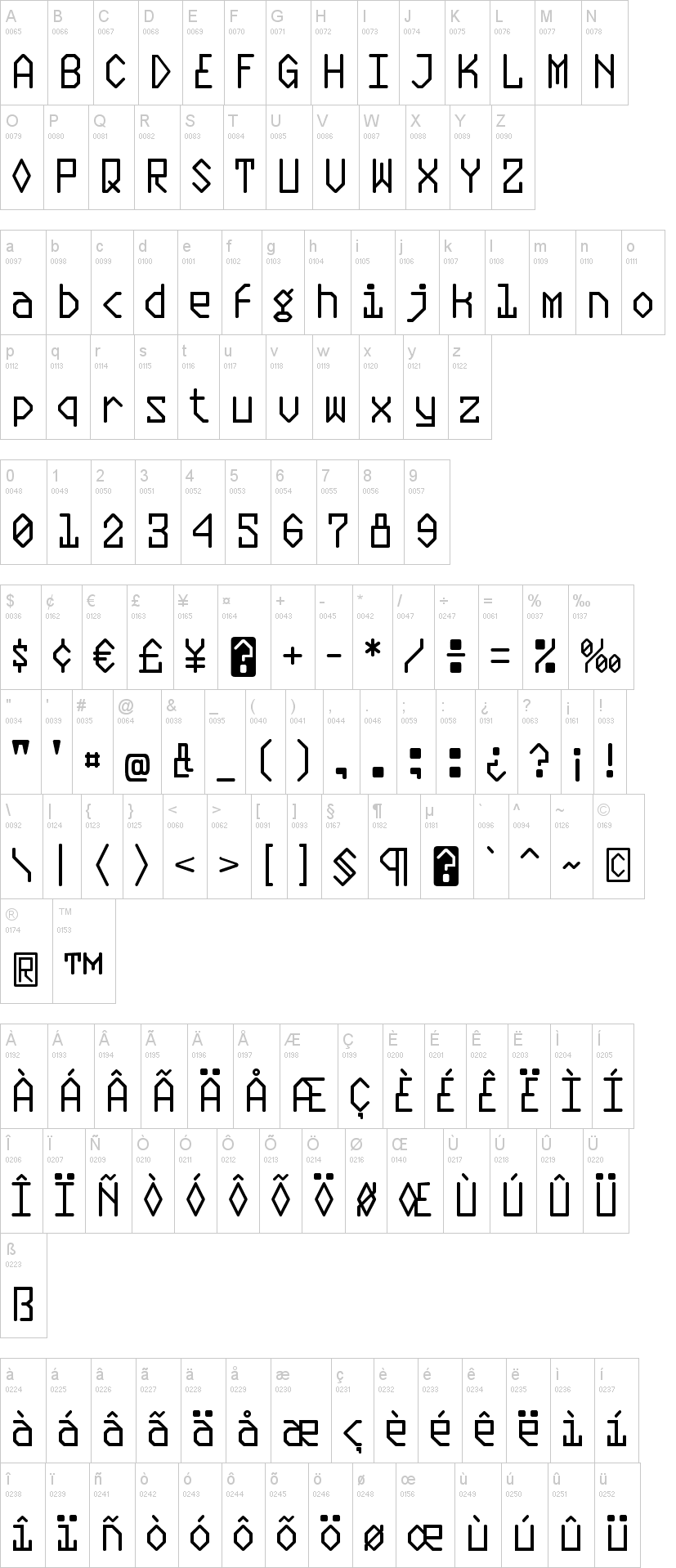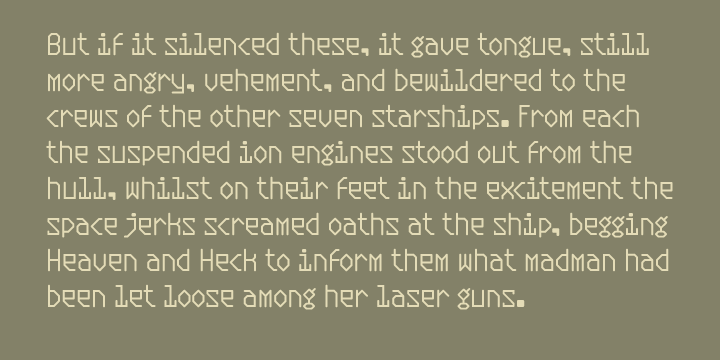
Шрифт Plasmatic
Plasmatic is a parody of optical character recognition (OCR) types of the 1960's. Don't forget to read the files inside the zip for details. Updated in 2012.